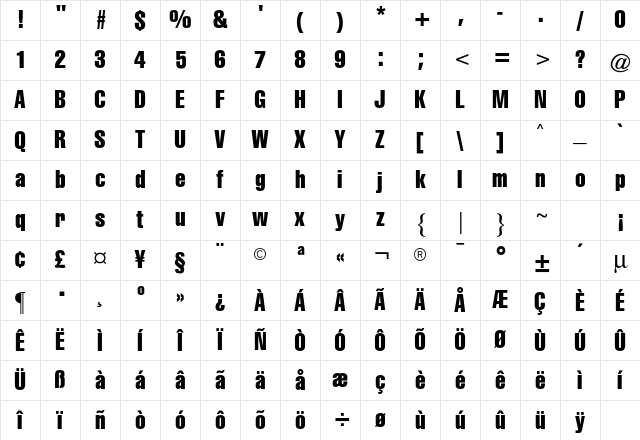
Triumvirate CG Comp Regular
Foundry: Miles Inc
Design Context for Triumvirate CG Comp
Triumvirate CG Comp is a composed and adaptable typeface that performs quietly and consistently across a wide range of design contexts.